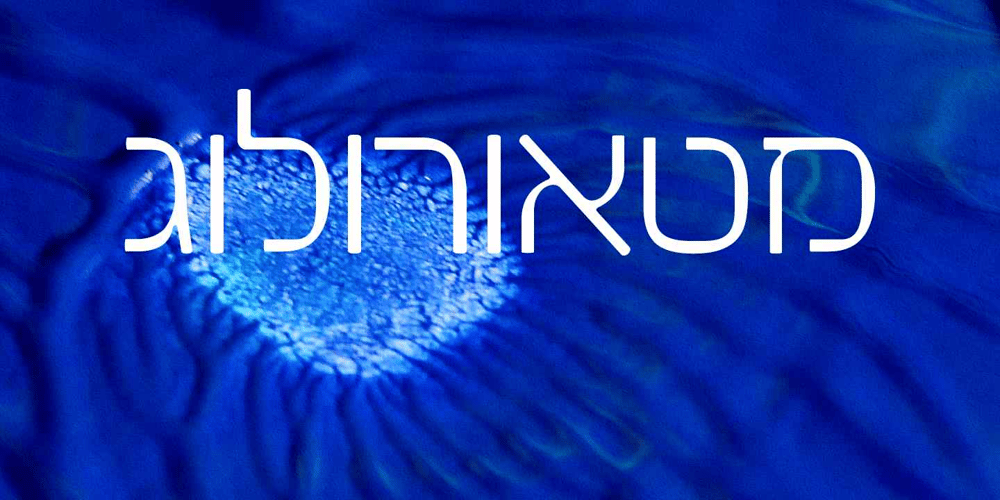
Aklimat MF
Aklimat MF font
Aklimat MF Font Family was designed by Eliyahu Fried and published by Masterfont. Aklimat MF contains 4 styles and family package options. Elegant font family with a technical twist, formal yet elegant.